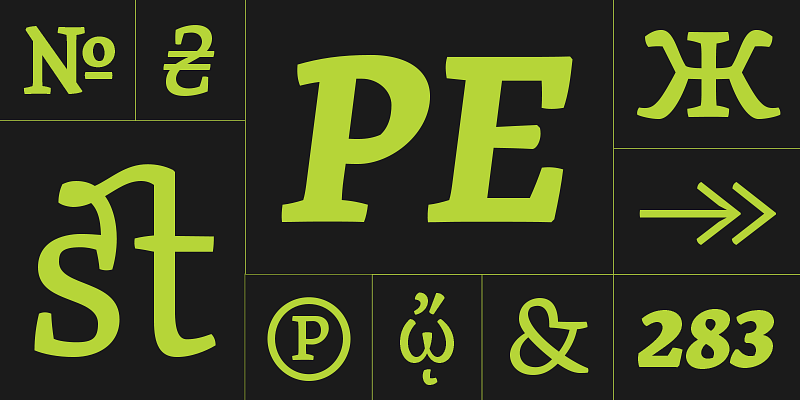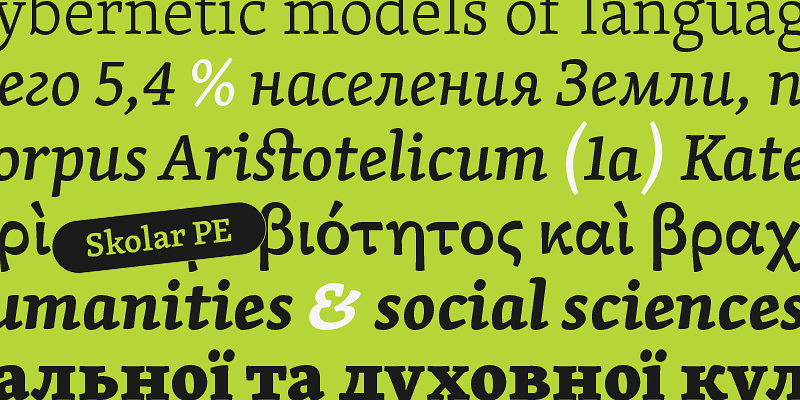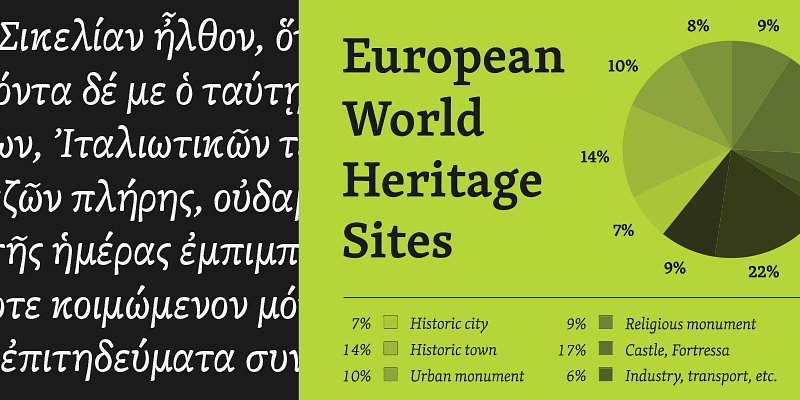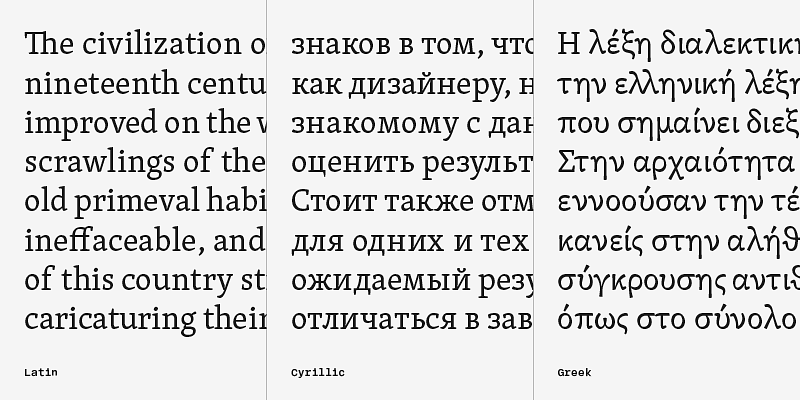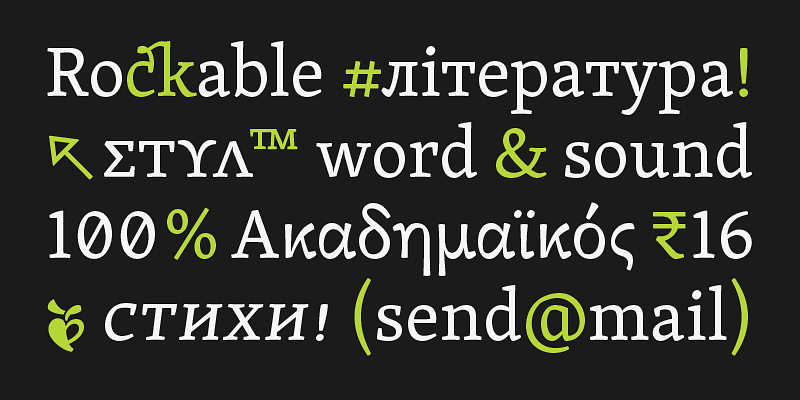
Skolar is a robust text typeface designed to address the needs of serious typography with a human touch. This highly esteemed workhorse has been used extensively across diverse platforms and purposes.